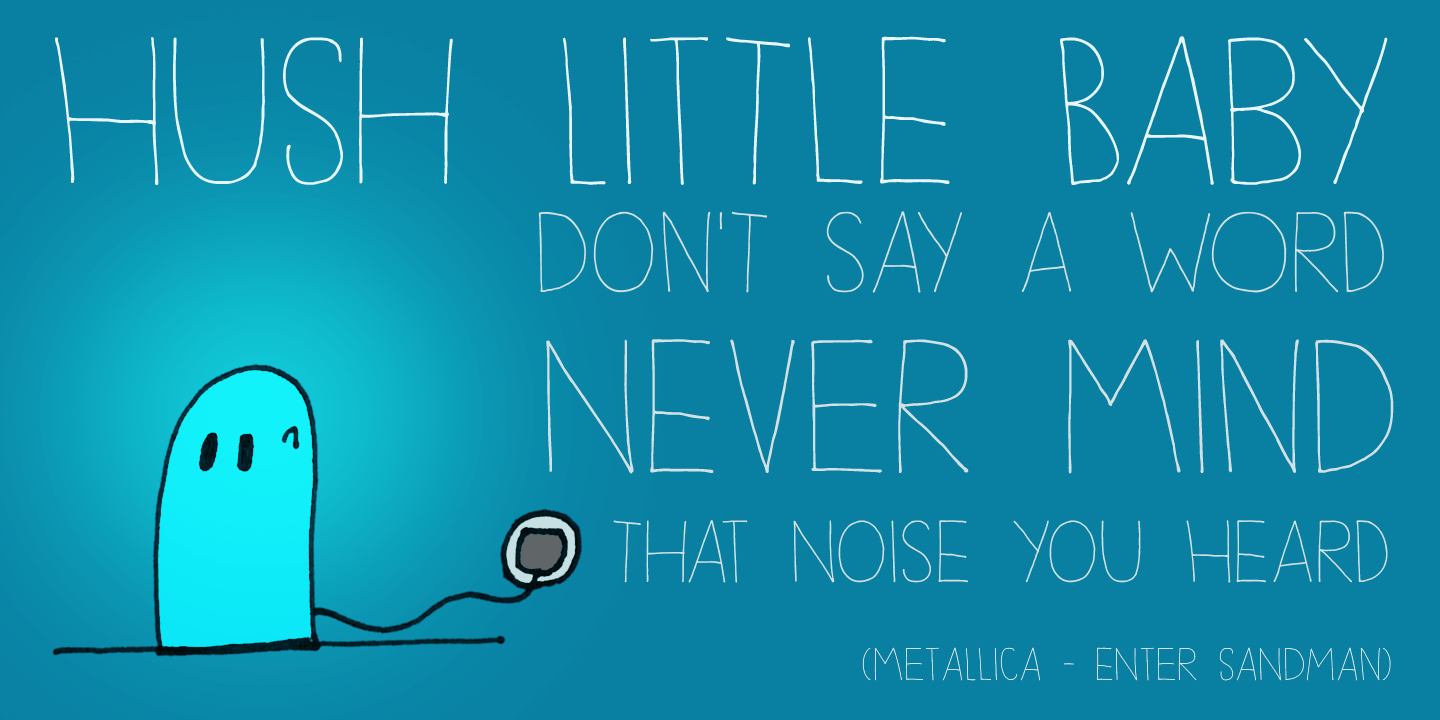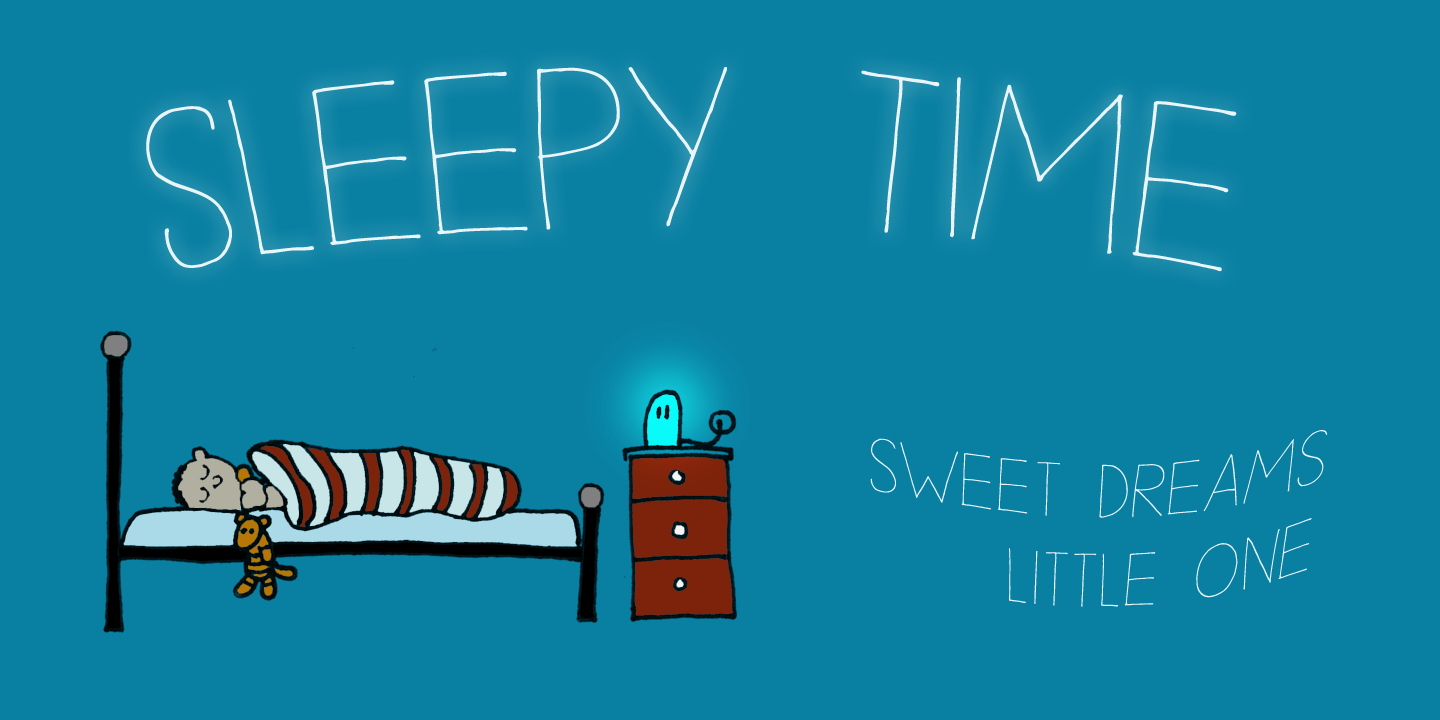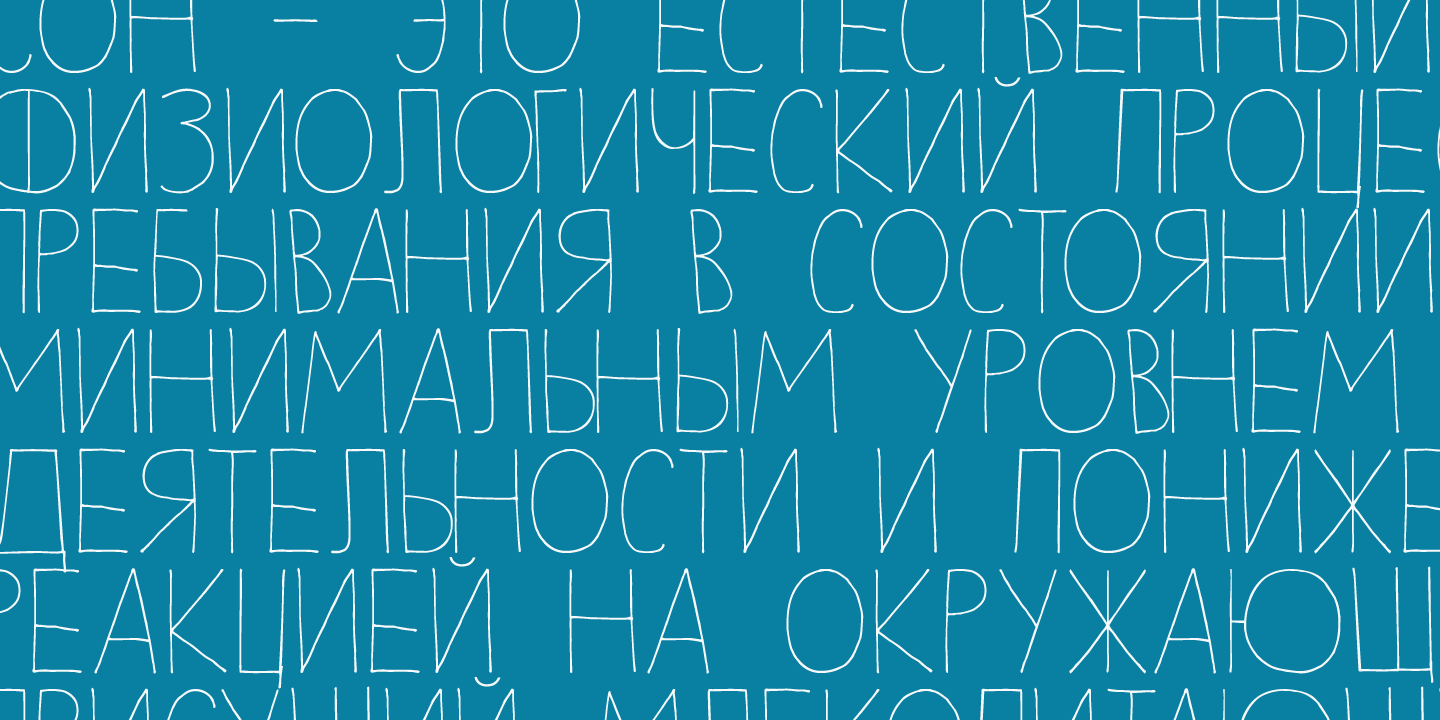
Sleepy Time
Buy NowSleepy time? Ah, if only your kids would go to bed, close their eyes and drift off to sleep. This font was created when my son had some problems falling asleep: he'd cry, he wanted to sleep in a different bed, he wanted a different animal friend (he has Tij - a tiger, Meh - a sheep, Rafi - a giraffe, Moo - a cow, Woofy - a dog, Kikker - a frog).
Sleepy Time font is an all caps typeface with uneven letters and a very different upper and lower case. It comes with all languages, including Cyrillic!